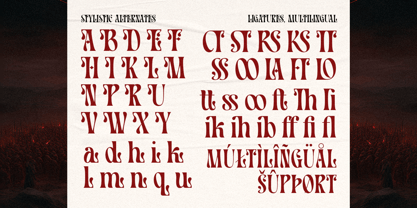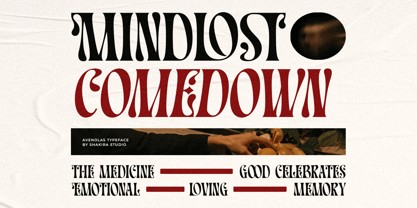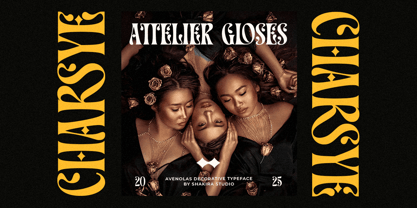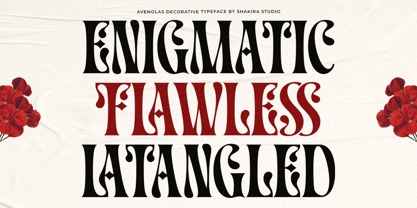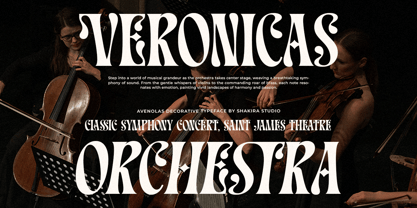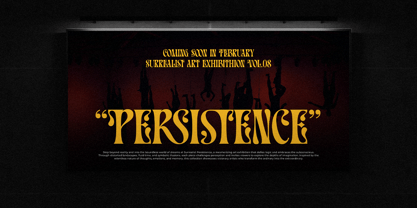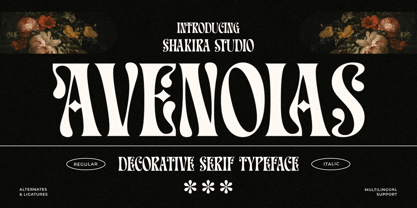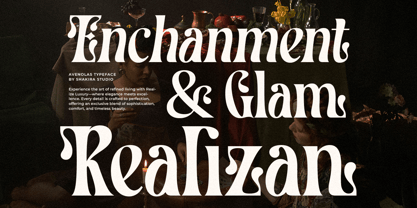
Avenolas – Decorative Serif Display Font
Avenolas is a decorative serif display font that blends uniqueness and elegance, designed to bring both classic and modern touches to any design. Equipped with alternates and ligatures, this font offers flexibility for designers to create diverse and captivating compositions.
Avenolas is perfect for branding, posters, magazines, product packaging, signage, and other print designs that require a distinctive and characterful appearance. With multilingual support, it ensures compatibility with various languages.
If you're looking for a font that delivers a vintage, stylish, and artistic impression, Avenolas is the perfect choice for your design projects!
- Regular & Italic
- All Multilingual symbol
- Opentype features ( ligature, alternate )